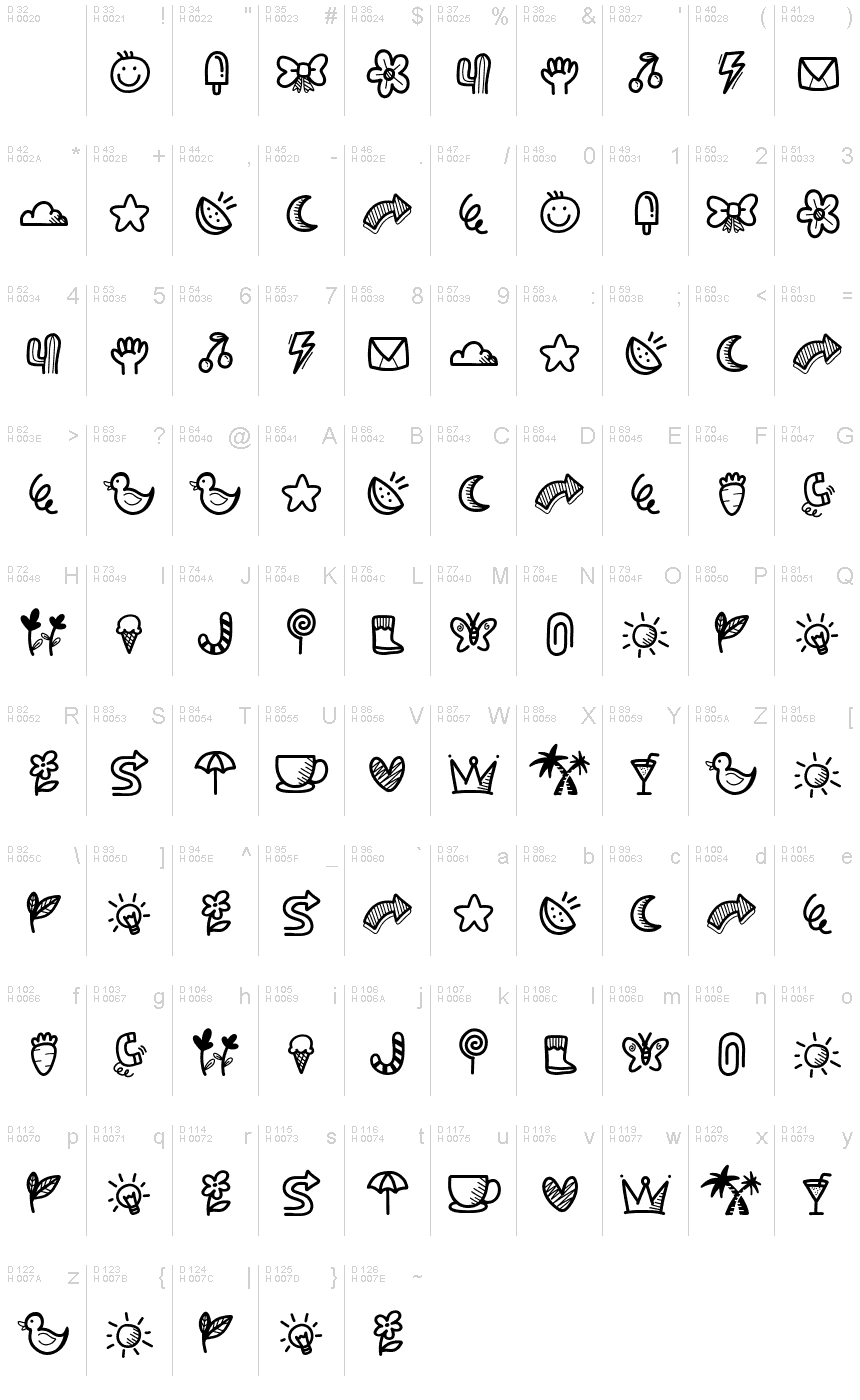
Storycan
Storycan, designed by Khurasan, stands out as a whimsical display font that infuses playfulness into every character. At first glance, Storycan captivates with its cartoonish style; each glyph is crafted not just as a letter but as an imaginative dingbat, reminiscent of childhood doodles and storybook illustrations. The font's aesthetic appeal lies in its ability to evoke nostalgia while maintaining readability – a balance that's not easily struck.
As we delve into the details of Storycan, it becomes evident that this font is more than just letters on a page; it's an invitation to visual storytelling. The creative potential for this typeface spans across various mediums - from children's books to playful branding and captivating posters. Its suitability shines in projects where a touch of charm and creativity is necessary to communicate with an audience that appreciates artistry and fun.
With Storycan, designers are equipped with an arsenal of characters that double as conversation starters. Whether you're looking to add personality to your designs or craft narratives within the typography itself, Storycan offers a unique avenue for expression that's sure to leave a lasting impression.